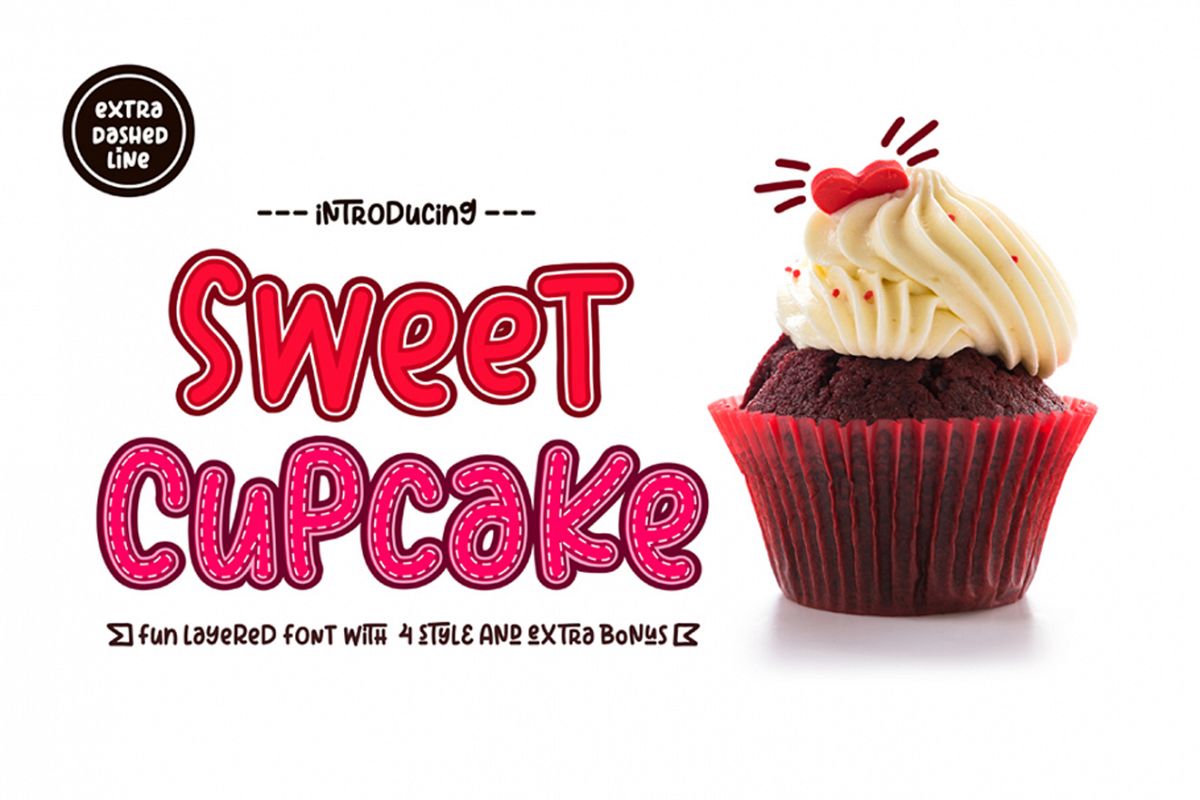
Sweet Cupcake
fun fonts with 4 styles and can be applied to many of your precious moments, this font is specially designed in layered style, equipped with multilanguage and opentype, don't forget there are also alternative letters and ligature that make this font so fun.there are more additions dashed line that you can enter manually to look different styles and there are dozens of additional doodle & badges completing this font. You can make as posters, titles, games, packaging, invitations and more